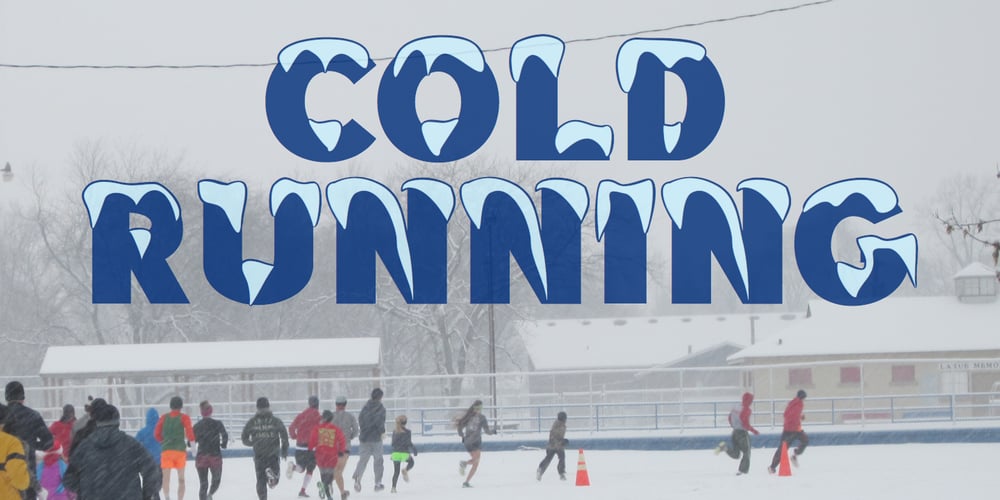
Brrrrr
Brrrrr font
Brrrrr Font Family was designed by Robert Schenk and published by Ingrimayne Type. Brrrrr contains 2 styles and family package options. Brrrrr is supposed to represent snow-covered letters, though it could also be letters covered with frosting. The lower case letters are identical to the upper-case letters. Buried in the font is another set of letters on Christmas tree ornaments. (They are on unicode characters in the 2400 block, circled digits and letters. See here.) The OpenType Stylistic Sets feature makes accessing these letters easier than using unicode, and another font, InsideLetters-Christmas, develops them further. The Brrrrr-Icing style can be used in a layer over Brrrrr to give the snowcap any color, not just the background color.